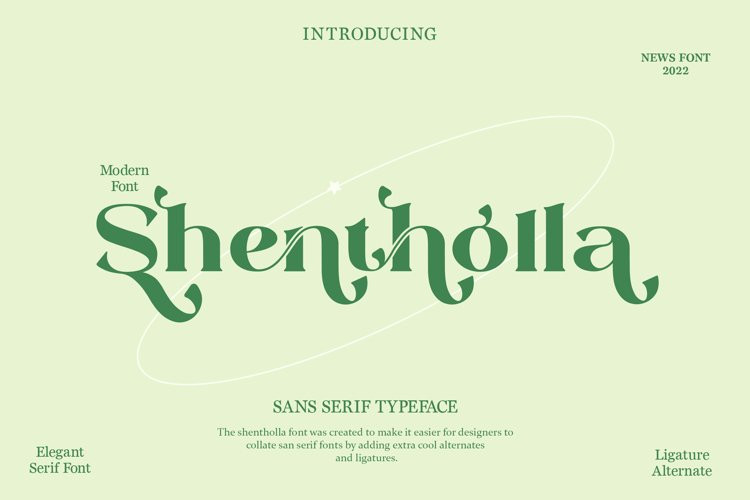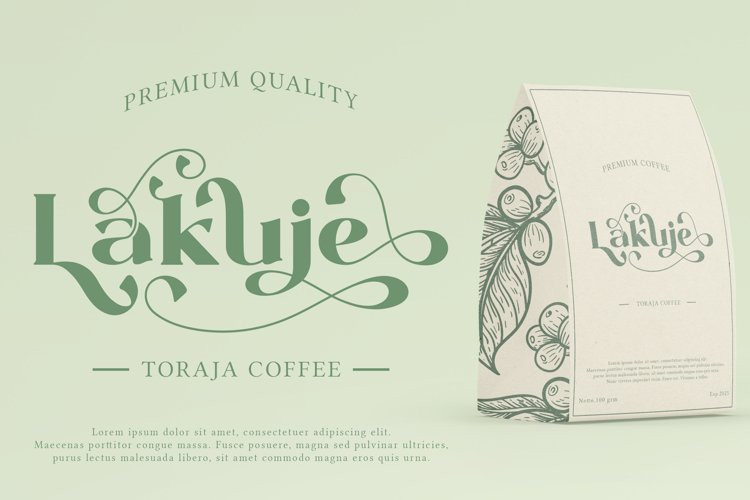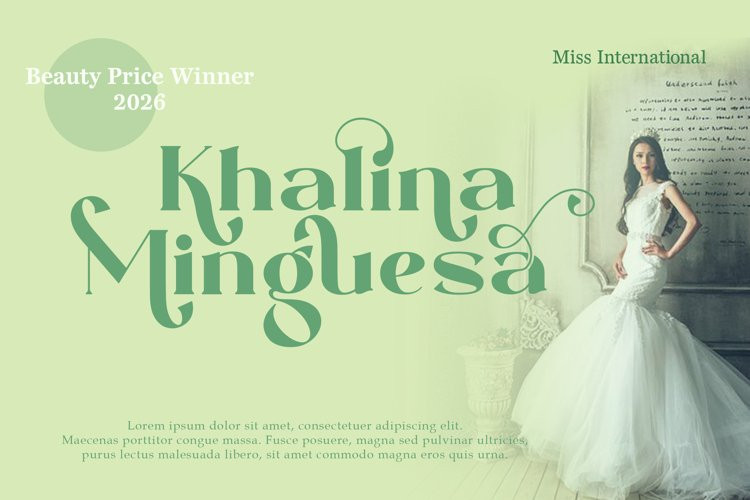
Shentholla Font
Meet our newest product, we call this product Shentholla font.
Shentholla font are sans serif typeface font
Whit a uniqe touch and assertive
Shentholla font is very nice to use on:
fashion magazine,logos, ,and photography,landing page,fliyer